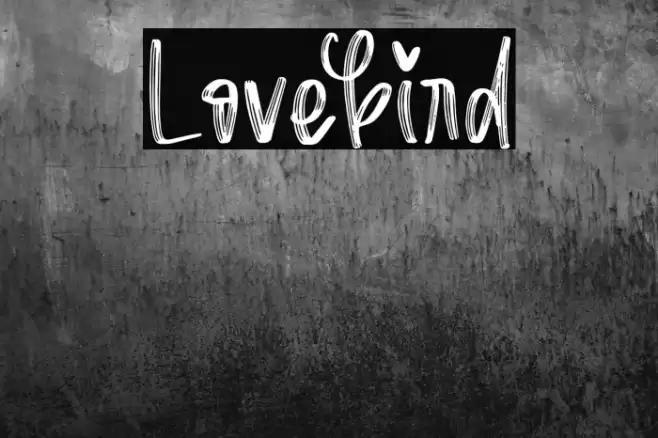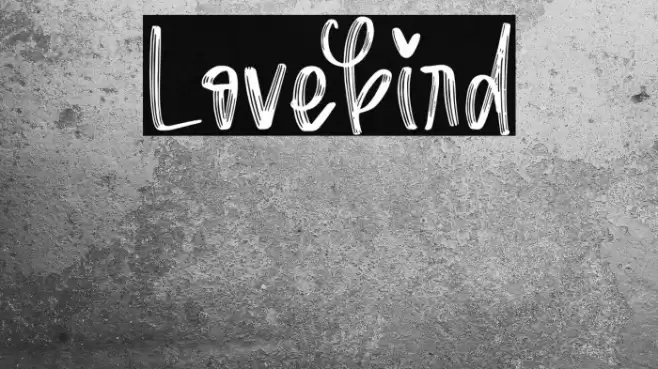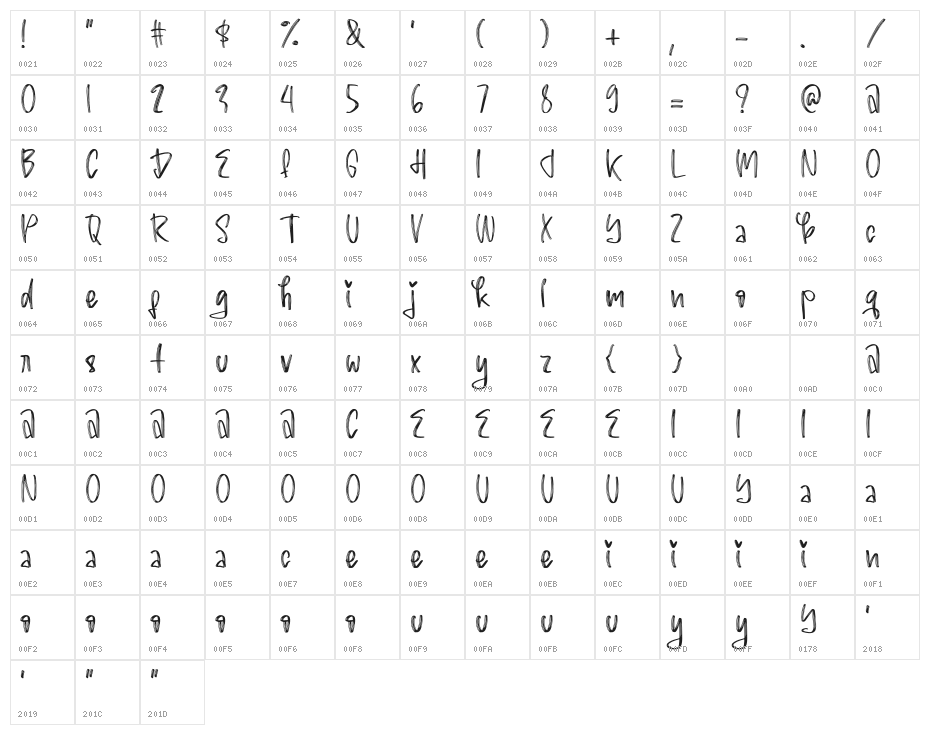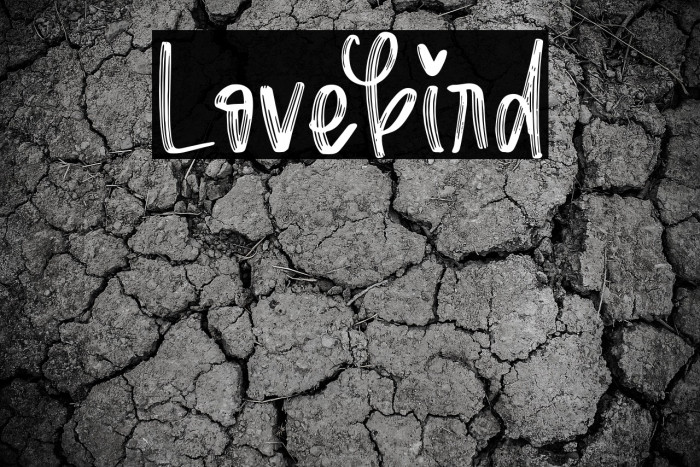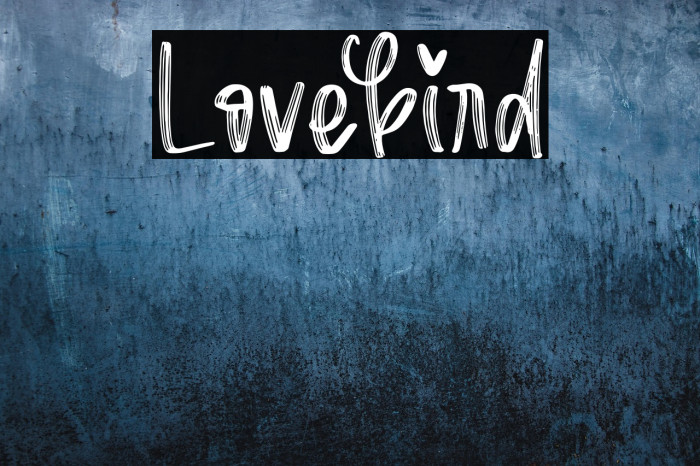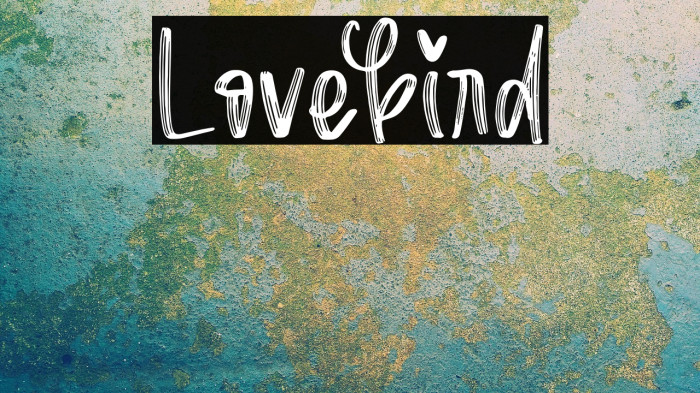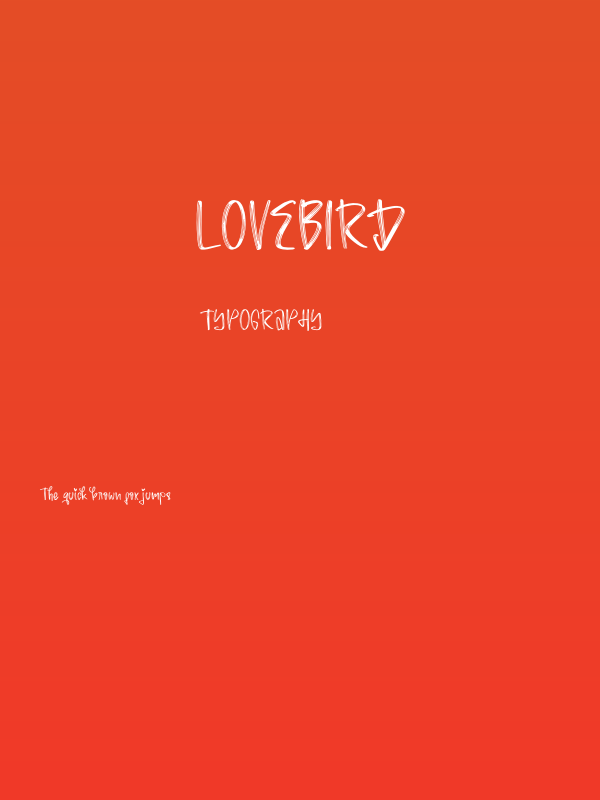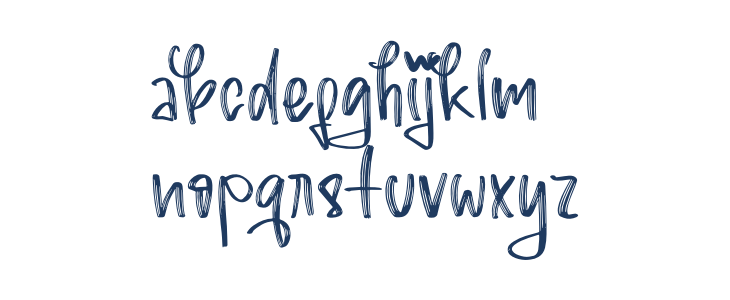
Lovebird Font
Lovebird Description
This font features a playful and energetic handwritten style, characterized by its bold and expressive strokes. The letters have a dynamic flow, with varying line thickness that adds a sense of movement and personality. The uppercase and lowercase letters maintain a consistent style, with some letters featuring unique loops and curves that enhance the font's whimsical nature. The numbers and special characters are equally expressive, making this font versatile for creative projects. Its informal and lively appearance makes it ideal for designs that require a personal touch.
A bold, playful handwritten font with dynamic strokes and expressive characters from Regular fonts.
- Proposed Projects: Ideal for greeting cards, playful branding, children's books, and creative social media graphics.
- Use Case: Logos, Headlines, Creative projects